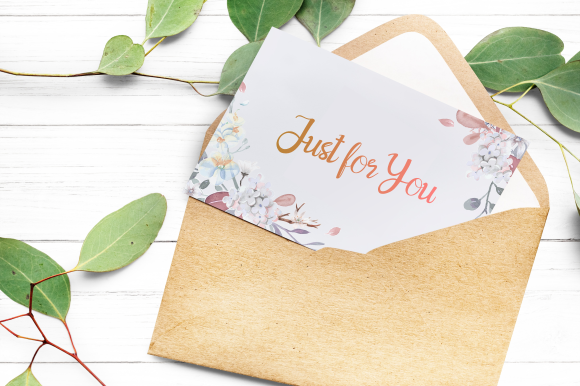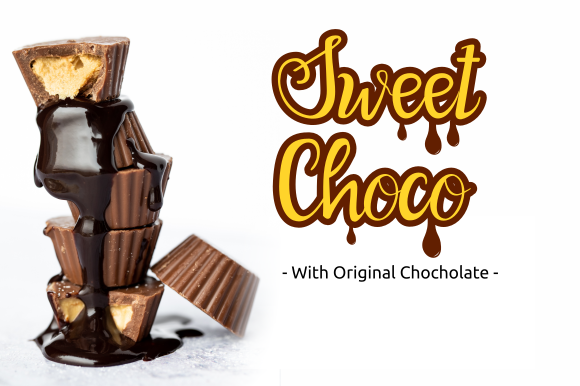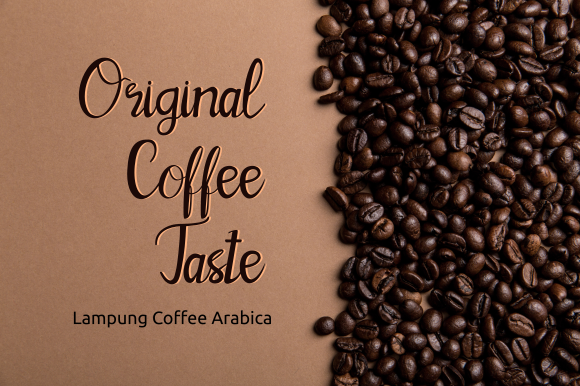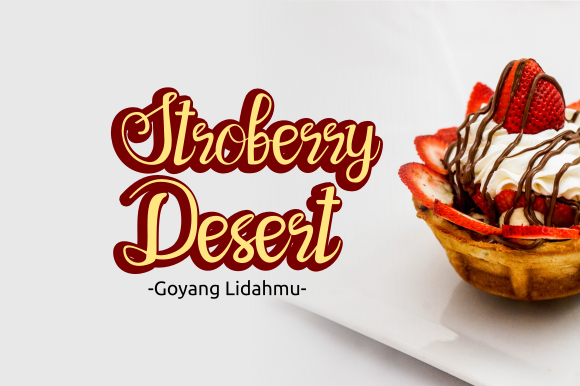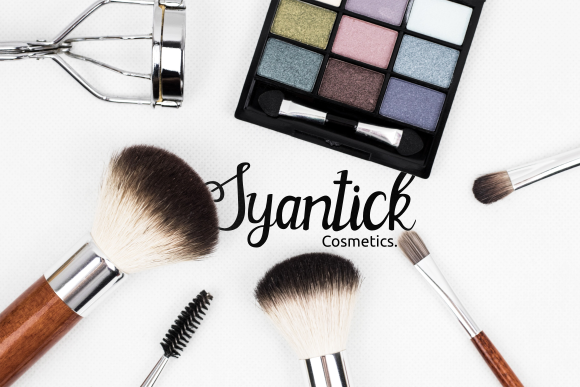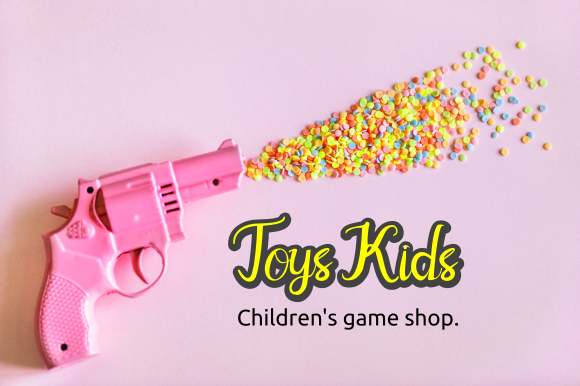
The Blink Pink Font: A Handwritten Gem to Elevate Your Designs
I’ll never forget the design project that led me to discover the Blink Pink font. I was working on a branding project for a crafty client, and I was struggling to find the perfect font to capture her playful yet sophisticated vibe. That’s when I stumbled upon Blink Pink, a carefully crafted handwritten font that instantly won my heart. In this article, I’ll share my love for this charming font, its features, and how to make the most of it in your designs.
Here’s what I love about Blink Pink:
• ✨ Authentic handwritten feel: Blink Pink has a lovely charm that makes it perfect for designs that require a personal touch.
• ✅ Highly legible: Despite its handwritten nature, Blink Pink is surprisingly easy to read, even at smaller font sizes.
• 🌈 Vibrant personality: This font is perfect for designs that require a pop of color and personality.
And here are some minor quirks to keep in mind:
• 🤔 Limited use in formal designs: Blink Pink is a highly informal font, so it’s best suited for creative projects that require a playful touch.
• ⚠️ Some glyphs may require adjustment: As with any handwritten font, some glyphs may need to be adjusted to ensure proper kerning and spacing.
A Practical Guide: Using Blink Pink in Your Designs
3. Experiment with OpenType features, such as Stylistic Alternates and Glyphs, to add more personality to your design.
3. Access OpenType features, such as Glyphs and Ligatures, by going to Window > Typography.
The Story Behind Blink Pink
Blink Pink was designed by a talented typographer who wanted to create a font that would capture the essence of handwritten writing. With its carefully crafted letterforms and lovely charm, Blink Pink is perfect for designers who want to add a personal touch to their designs.
Author AboeZart Studio
What type of designs is Blink Pink best suited for? Blink Pink is perfect for creative projects that require a playful, handwritten touch, such as branding, packaging, and social media graphics.
Does Blink Pink support OpenType features? Yes, Blink Pink supports OpenType features, such as Stylistic Alternates and Glyphs, which can be accessed in compatible design apps.
Is Blink Pink suitable for body text? While Blink Pink is highly legible, it’s best suited for headlines and short paragraphs. For longer body text, a more traditional font may be more suitable.